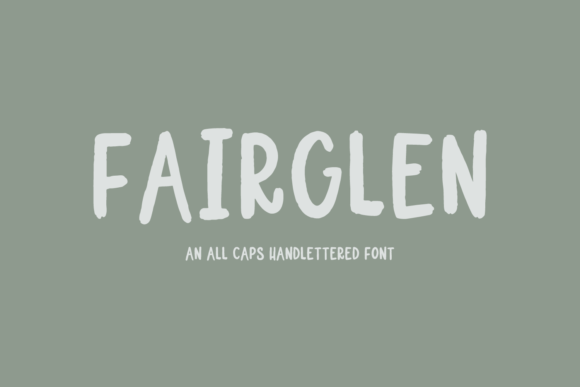
Behold Fairglen Font, an exquisite script font family that will transform your creative visions into captivating realities. BeckMcCormick, the artistic mastermind behind this font, has meticulously crafted every letterform to mimic the charm and texture of authentic marker writing. With its playful, yet elegant aura, Fairglen Font is the perfect choice for injecting personality and flair into your digital creations.
Immerse yourself in the boundless possibilities that Fairglen Font offers. From classrooms and educational materials, where its bold, attention-grabbing presence will make learning an unforgettable adventure, to social media platforms, where it will elevate your quotes and graphics to new heights of engagement. Fairglen Font is more than just a font; it's an artistic tool that empowers you to express yourself authentically and authentically.
With its uniquely textured style, Fairglen Font has a magical ability to transport your audience to a world of creativity and imagination. Imagine the impact it will have on your Instagram posts, where every word will dance with personality, capturing the attention of your followers and leaving them spellbound. Unleash your inner artist and explore the endless possibilities that await you with Fairglen Font.
Let Fairglen Font be your creative companion, guiding you through the journey of self-expression and leaving a lasting impression on those who encounter your creations. Its versatility knows no bounds, adapting seamlessly to a myriad of projects, from logos and branding that exude professionalism to header elements that radiate joy and enthusiasm.
Say goodbye to ordinary fonts and embrace the extraordinary with Fairglen Font. Its enchanting presence will leave an indelible mark on your audience, captivating their hearts and leaving them yearning for more. Don't settle for mediocrity; choose Fairglen Font and unlock the true potential of your creative endeavors. Let your imagination soar, let your words dance, and let Fairglen Font be the soundtrack to your creative symphony.